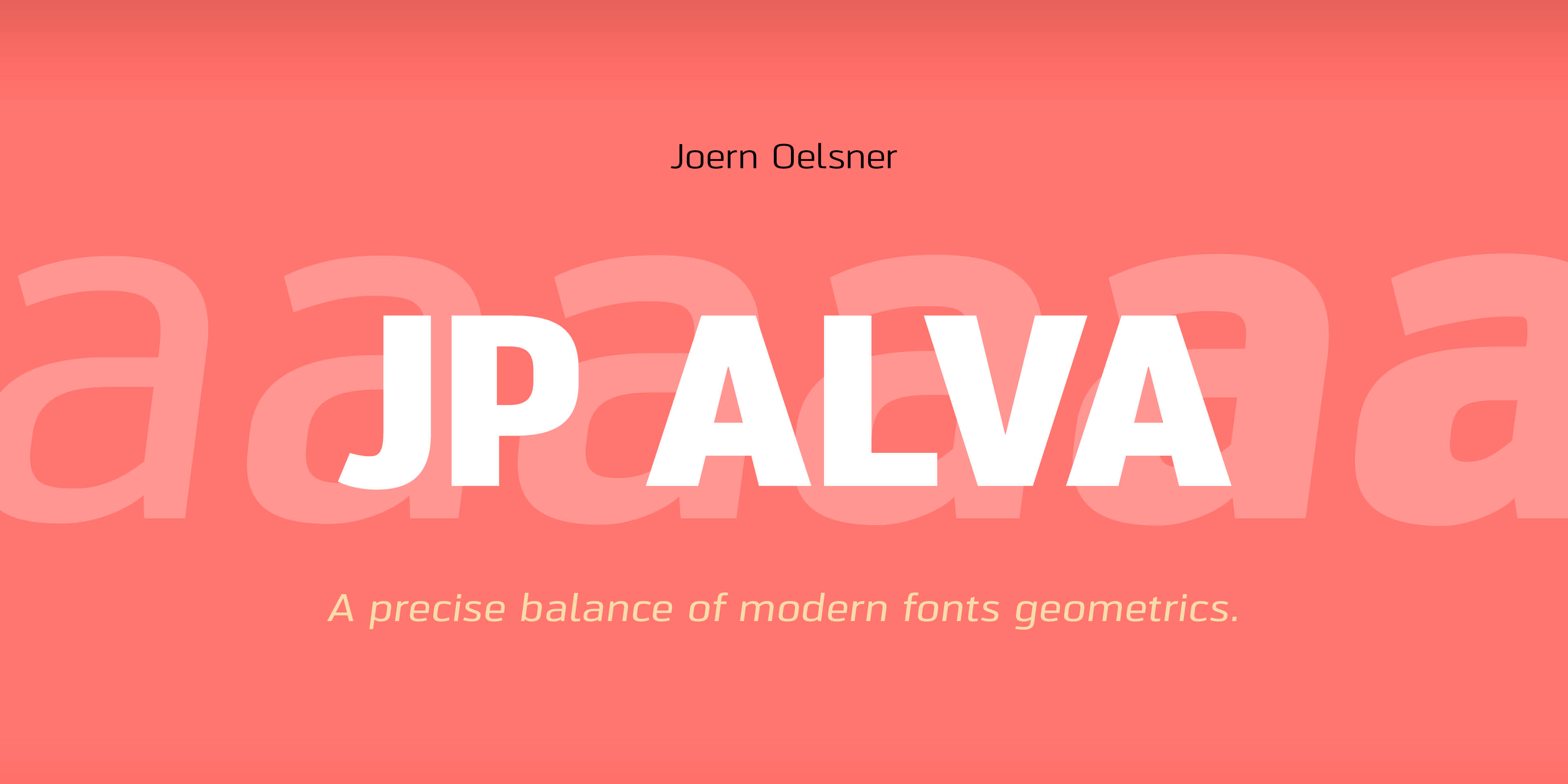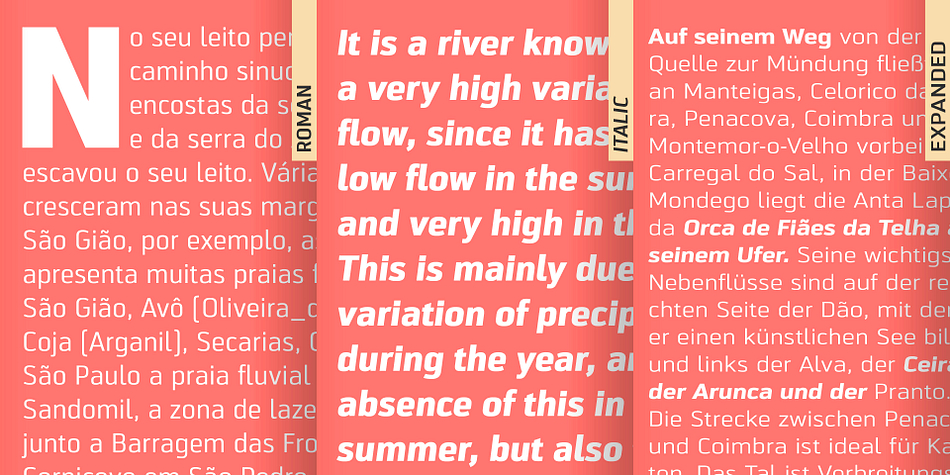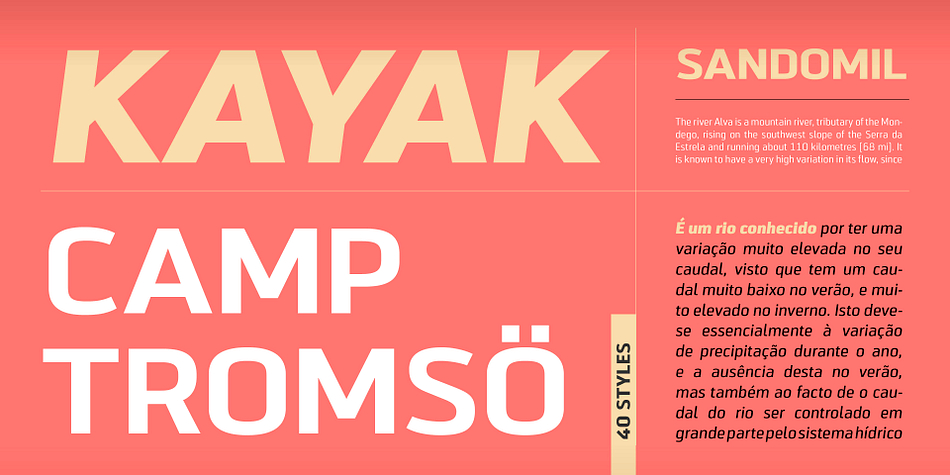
jpAlva
Designed by Jörn Oelsner, jpAlva is a sans serif font family. This typeface has forty styles and was published by JPFonts.
jpAlva is a technical and functional sans-serif that consists of 40 typefaces, divided in 2 font families jpAlva and jpAlva Extended. A universal family of typefaces that fits pretty much any purpose. It illustrates a precise balance of modern geometrics, with a functional yet sparing style that effectively communicates without distraction. A straightforward, unadorned appearance with efficient construction. Simple, clean with a technical note and a wide range of styles it is perfectly suitable for a wide range of applications, from identity systems to editorial design, from signage systems to software applications. Designed with powerful OpenType features (e.g. figure sets, fractions, ligatures, case sensitive forms) and extended language support, it is easy and enjoyable to use.